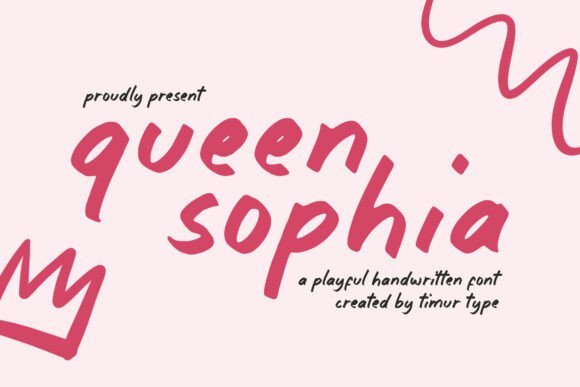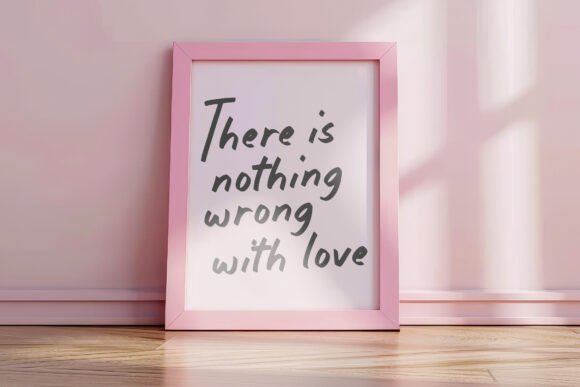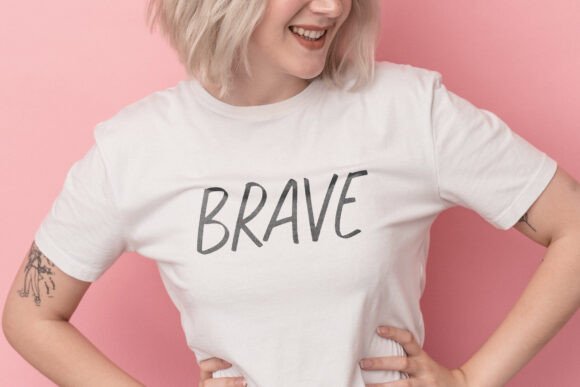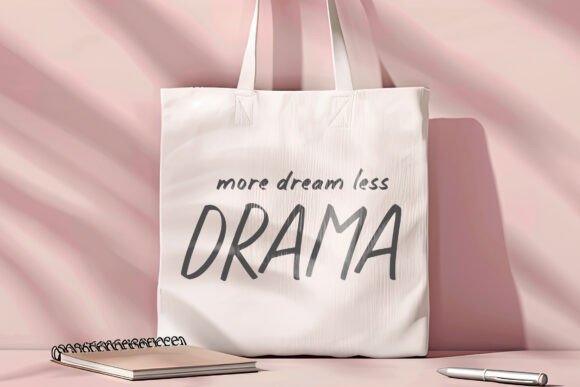
Queen Sophia Font: A Playful Handwritten Font for Cute DIY Projects
About the Queen Sophia Font
Crafted with precision, the Queen Sophia Font is ready to bring your ideas to life. Queen Sophia is a Playful Handwritten Font
This font is an adorable, playful handwritten font with a cute and whimsical charm. Its rounded, bouncy letterforms and gentle curves give it a friendly, approachable feel, making it perfect for adding a lighthearted touch to invitations, greeting cards, or any project that needs a sweet, fun vibe. Queen Sophia brings warmth to your designs with its endearing style.
Queen Sophia’s playful nature makes it ideal for projects requiring a lighthearted and approachable feel, such as children’s books, branding for sweet treats or craft businesses, and whimsical invitations. It excels in headlines, short text blocks, and logos where its charm is highlighted. However, its informal style is less suitable for body text, lengthy paragraphs, or applications requiring high readability, like websites or user interfaces.
Pairing Queen Sophia works best with fonts that offer a contrasting level of formality. A clean sans-serif like Open Sans would provide a balanced and modern feel, while a classic serif like Garamond could add a touch of elegance and sophistication. For a more playful pairing, consider a geometric sans-serif font.
Its overall personality is undeniably friendly and approachable, conveying a sense of warmth and whimsy. Avoid using it in contexts demanding seriousness or professionalism.
Queen Sophia Font Usage Examples
Queen Sophia Font Example